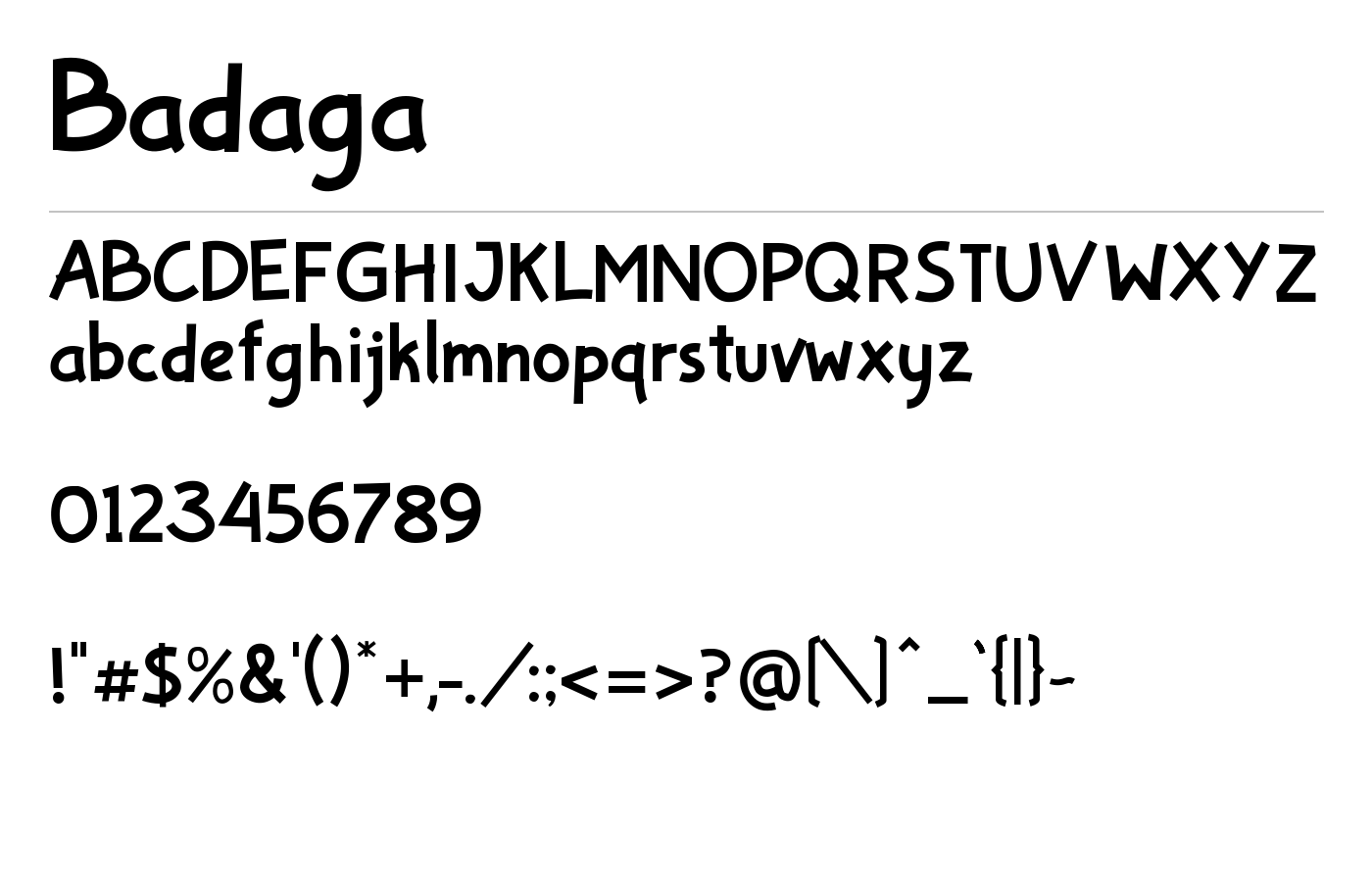
Badaga is a playful and informal sans-serif font featuring slightly irregular, hand-drawn letterforms with moderate contrast and a lively rhythm. Its rounded edges and quirky shapes give it a friendly, approachable personality ideal for casual branding, children’s materials, and creative projects seeking a fun and engaging tone. This font works best in headlines or short texts where its unique character can shine.
Badaga Font
About Badaga Font